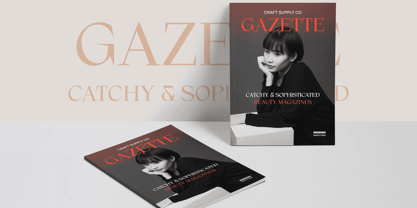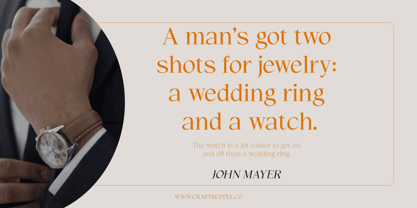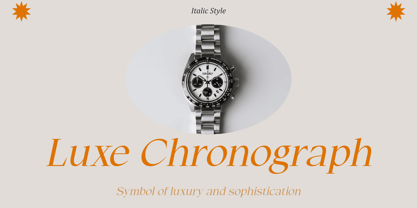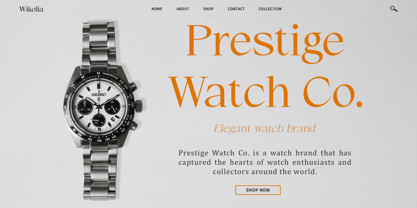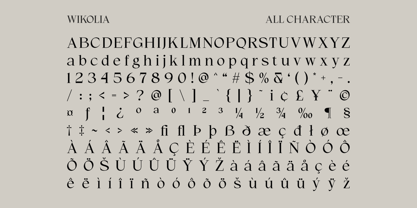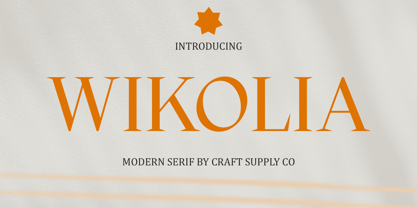
Wikolia
by Craft Supply Co
The Wikolia Font Family was designed by Trio Nazzar Saputra, Wahyu Hadi Yuana and published by Craft Supply Co. Wikolia contains 2 styles and family package options. More about this family
Wikolia: Versatile Modern Serif High Contrast Design Wikolia features a modern serif design with high contrast, enhancing readability and visual appeal. Its bold strokes and refined details make it stand out in any layout. Suitable for Various Needs This font is versatile, catering to a wide range of design needs, from creative projects to corporate branding. Whether it’s used for headlines, body text, or logos, This font adapts effortlessly to different contexts. Professional and Elegant With its clean lines and sophisticated appearance, This font exudes professionalism and elegance in any context. Its timeless design ensures that it remains a classic choice for designers seeking a touch of refinement. Ideal for Corporate Branding This font is particularly well-suited for corporate branding, offering a balance of modernity and traditional sophistication. Its versatility allows it to convey a sense of professionalism while maintaining a contemporary edge. The Perfect Blend of Modernity and Elegance This font is a versatile serif font with high contrast, suitable for both creative and corporate projects. Its professional yet stylish design makes it an excellent choice for a wide range of applications, from marketing materials to corporate communications. Whether used for print or digital media, Wikolia adds a touch of sophistication to any design.
Designers: Trio Nazzar Saputra, Wahyu Hadi Yuana
Foundry: Craft Supply Co